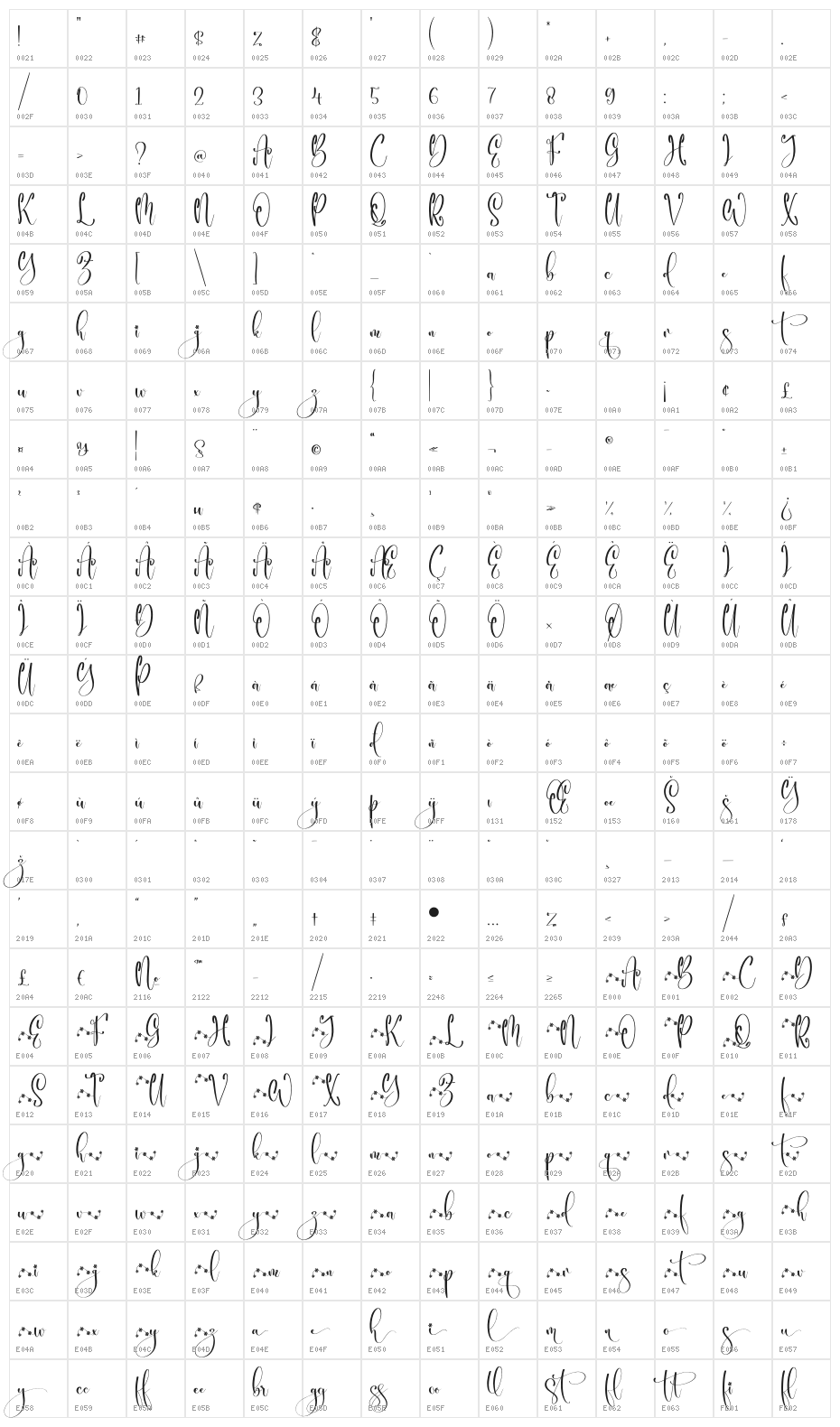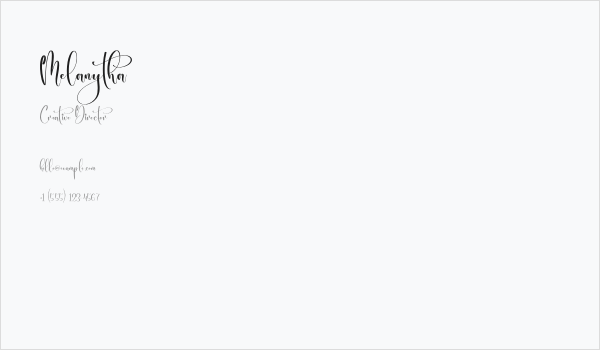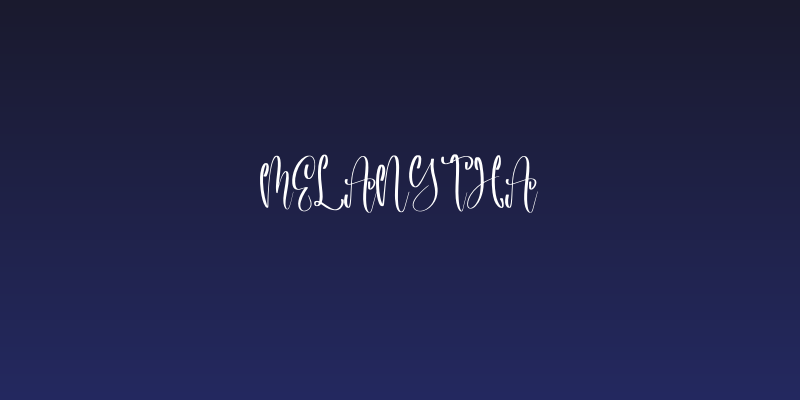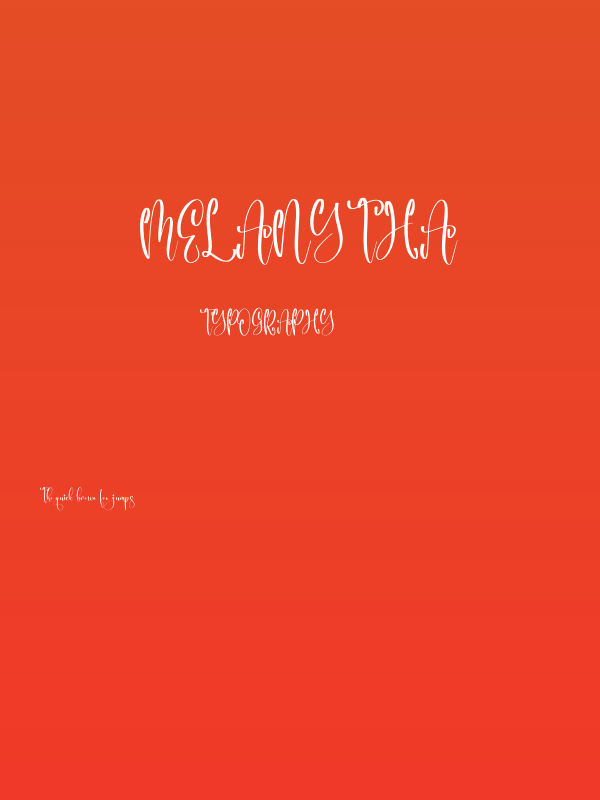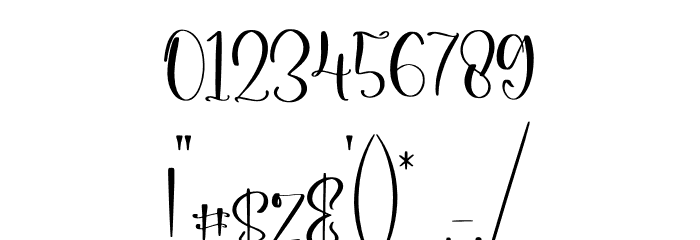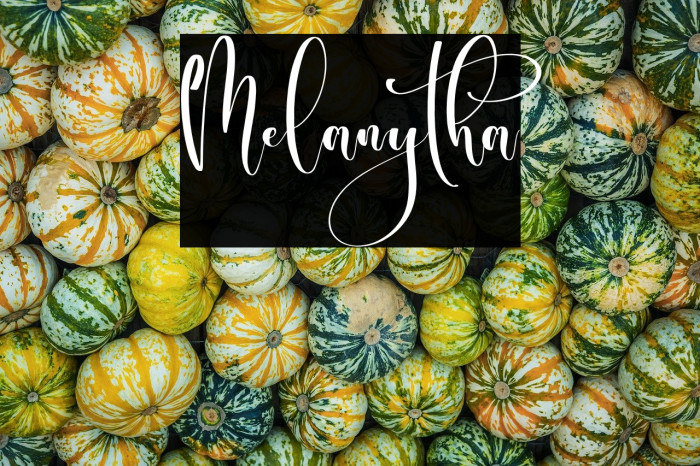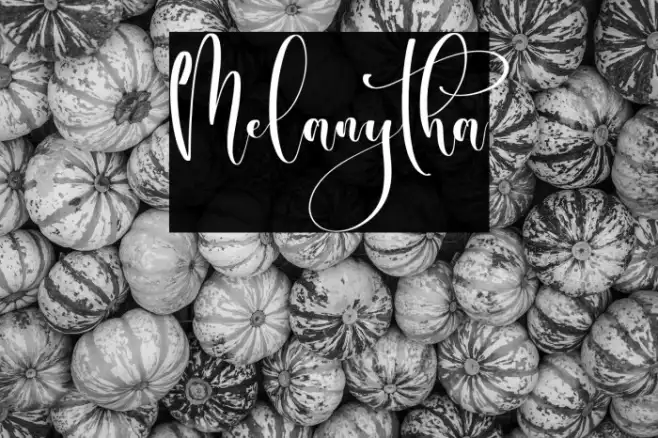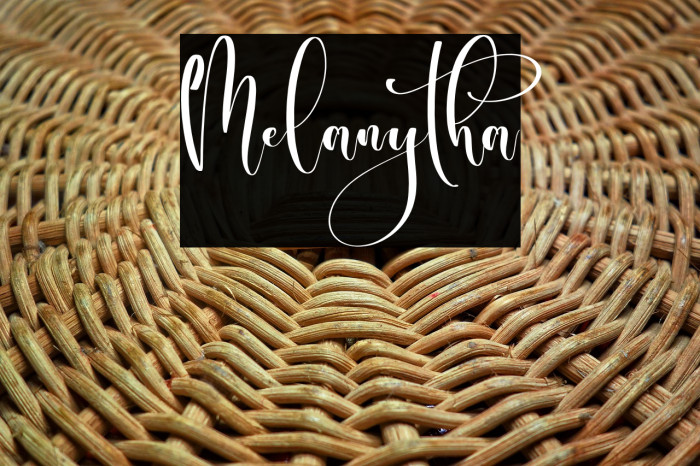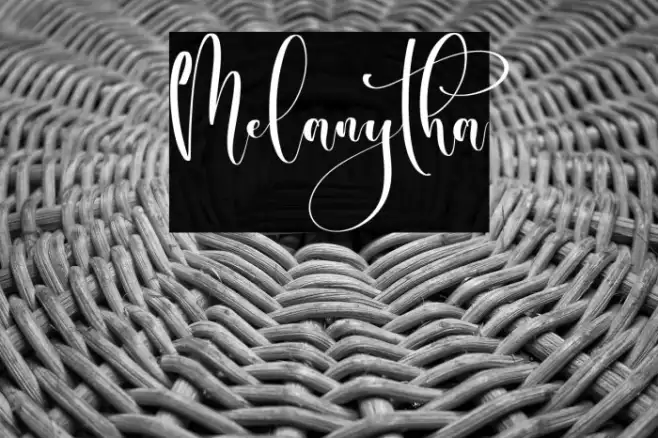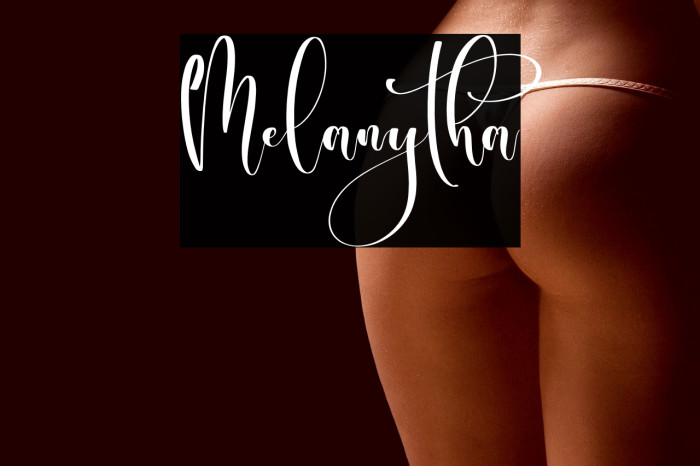
Melanytha Font
Melanytha Description
This font is a beautifully crafted script typeface that exudes elegance and sophistication. Each letter is intricately designed with flowing curves and delicate swashes, creating a sense of movement and grace. The uppercase letters are bold and prominent, while the lowercase letters feature unique loops and flourishes that add a touch of whimsy. The numbers and special characters maintain the same artistic style, ensuring a cohesive look across all text. This font is perfect for projects that require a touch of elegance and creativity, such as wedding invitations, branding, and high-end product packaging.